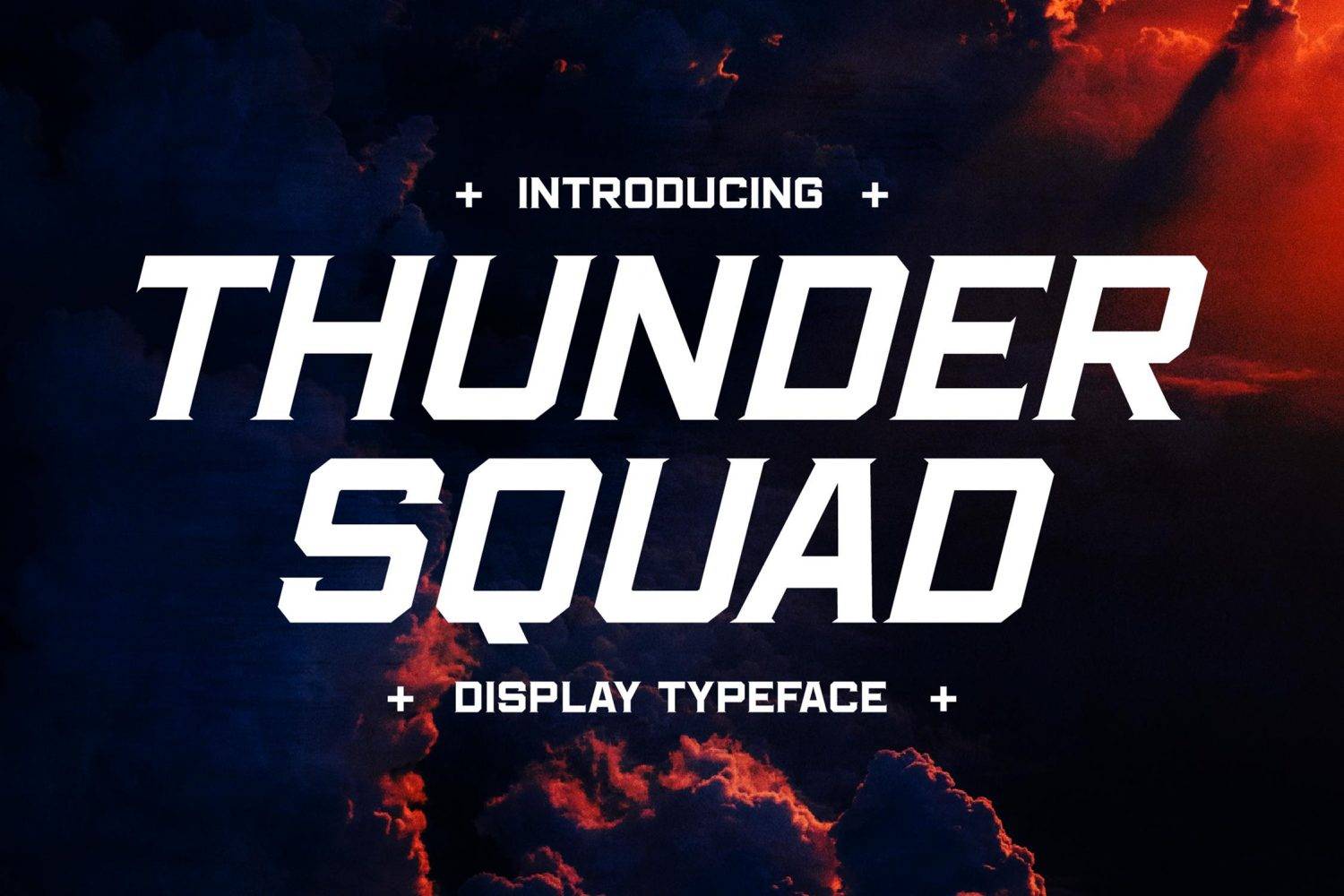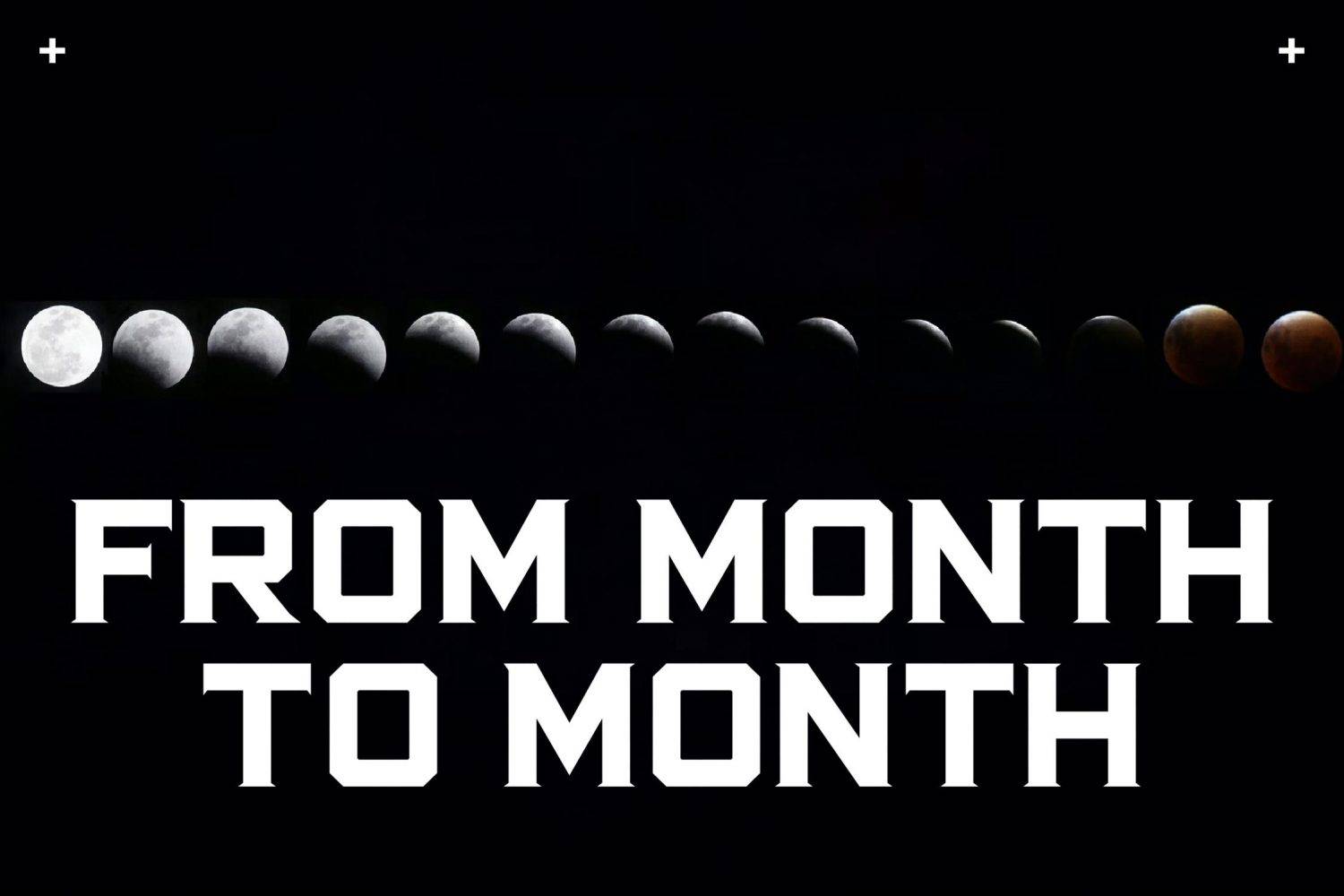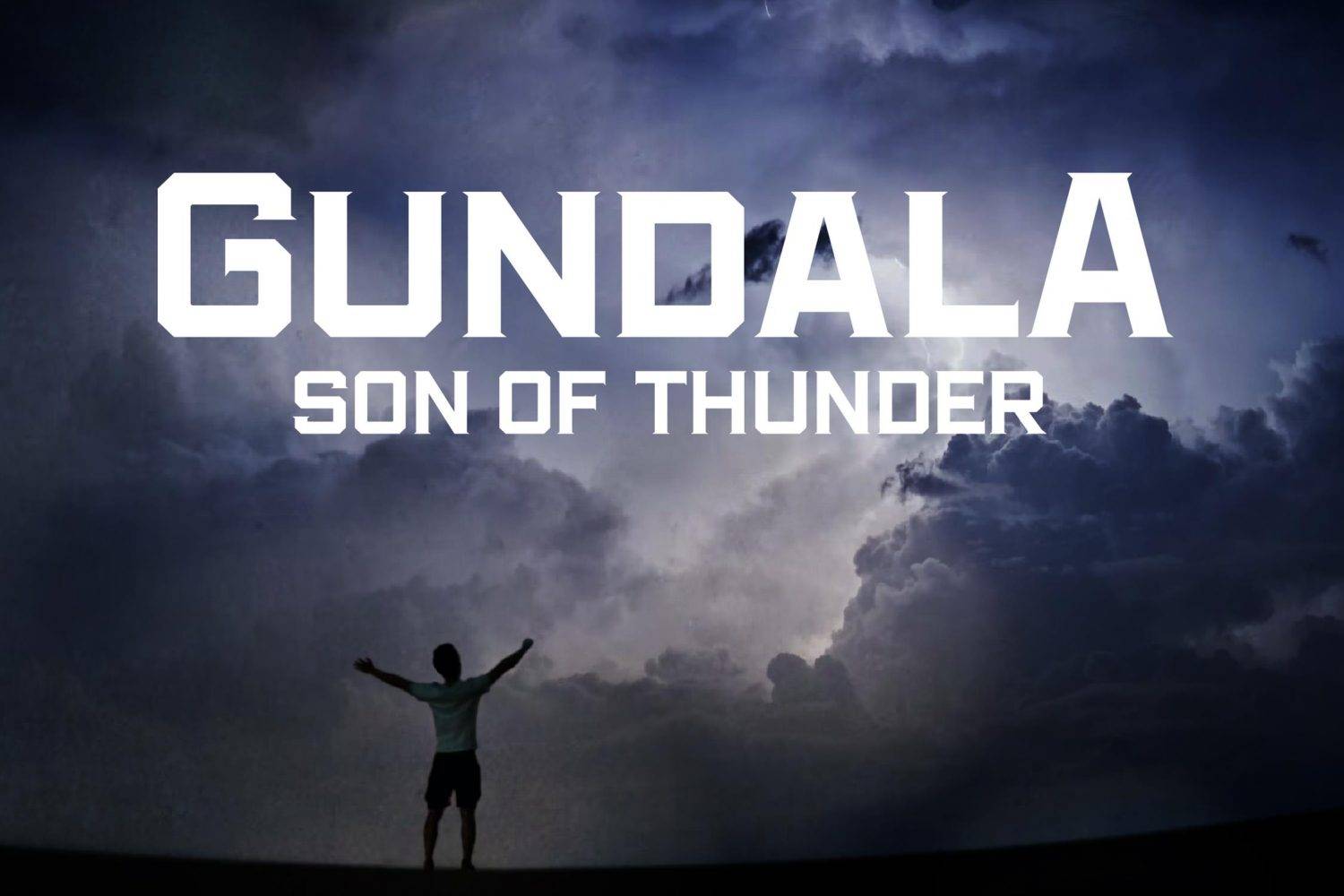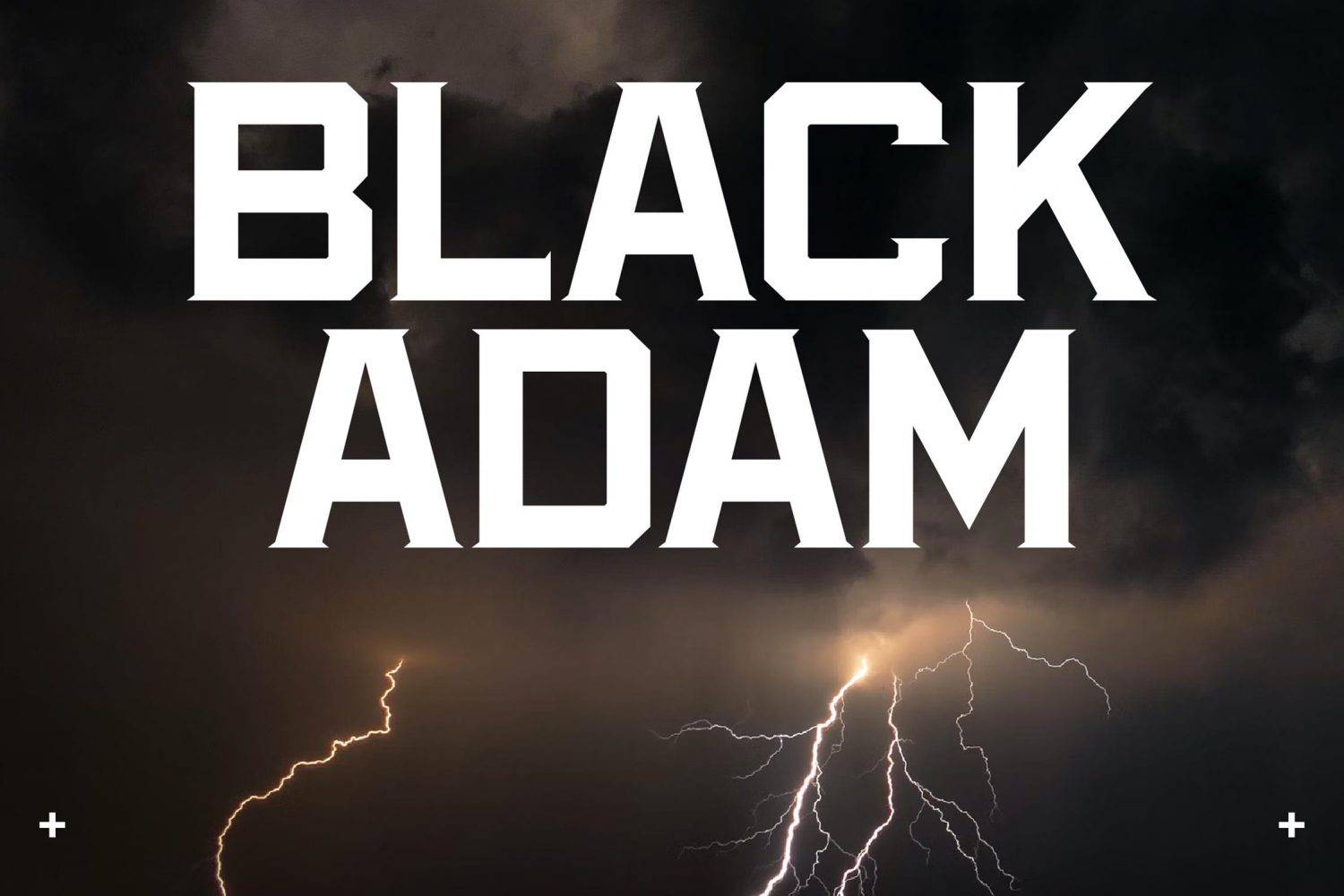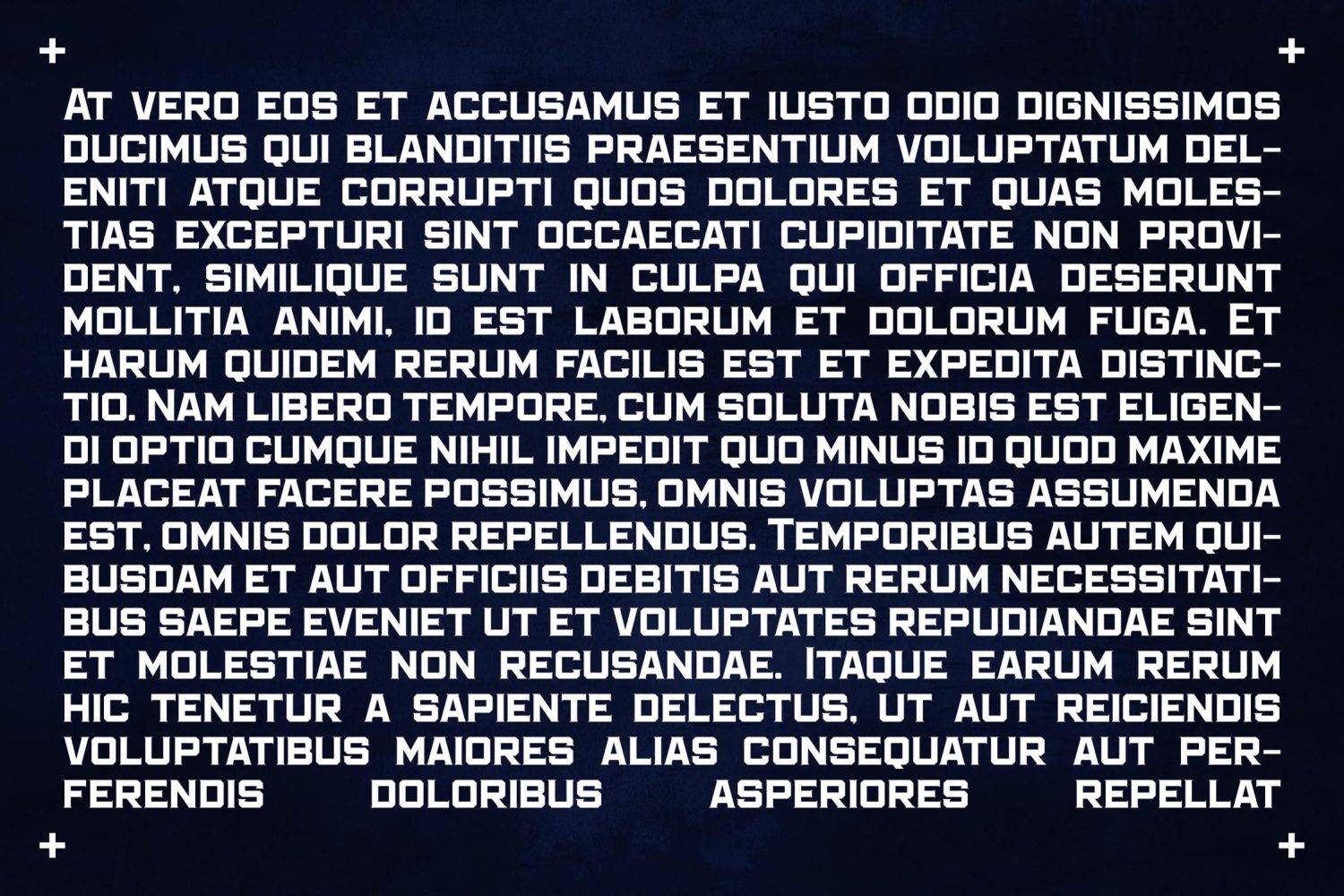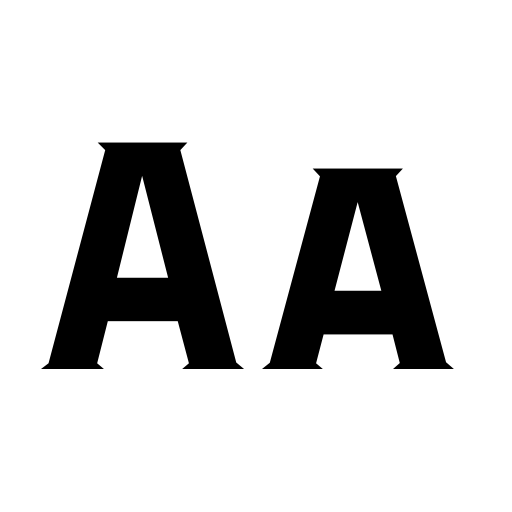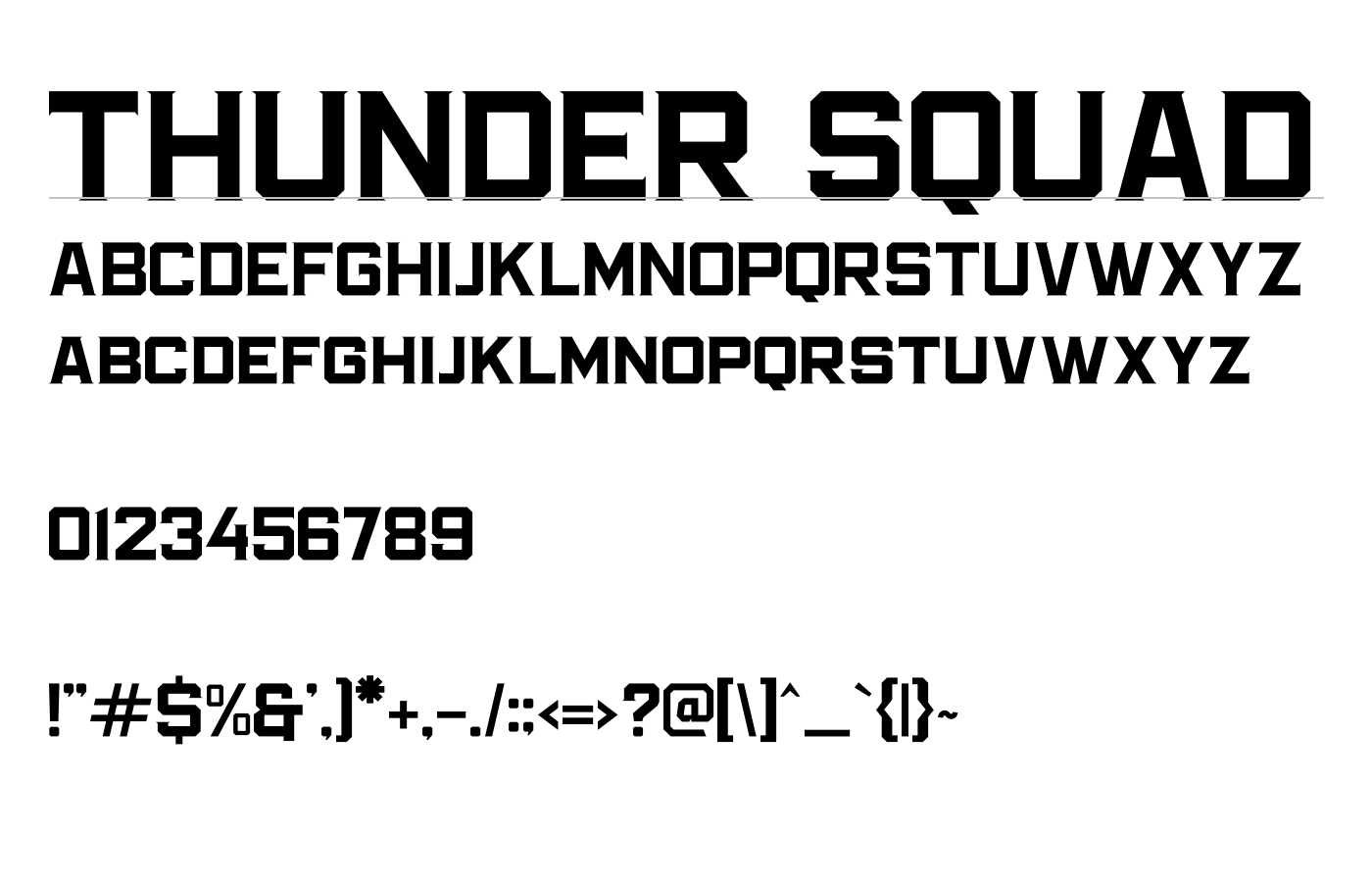
Thunder Squad is a bold, geometric sans serif font with strong angular lines and a sturdy, condensed structure that conveys power and modernity. Its sharp edges and uniform weight provide a sleek, dynamic look ideal for impactful headlines, sports branding, and edgy logos that demand attention. This font works best where a confident, futuristic style is needed to evoke strength and energy.
Thunder Squad Font
About Thunder Squad Font